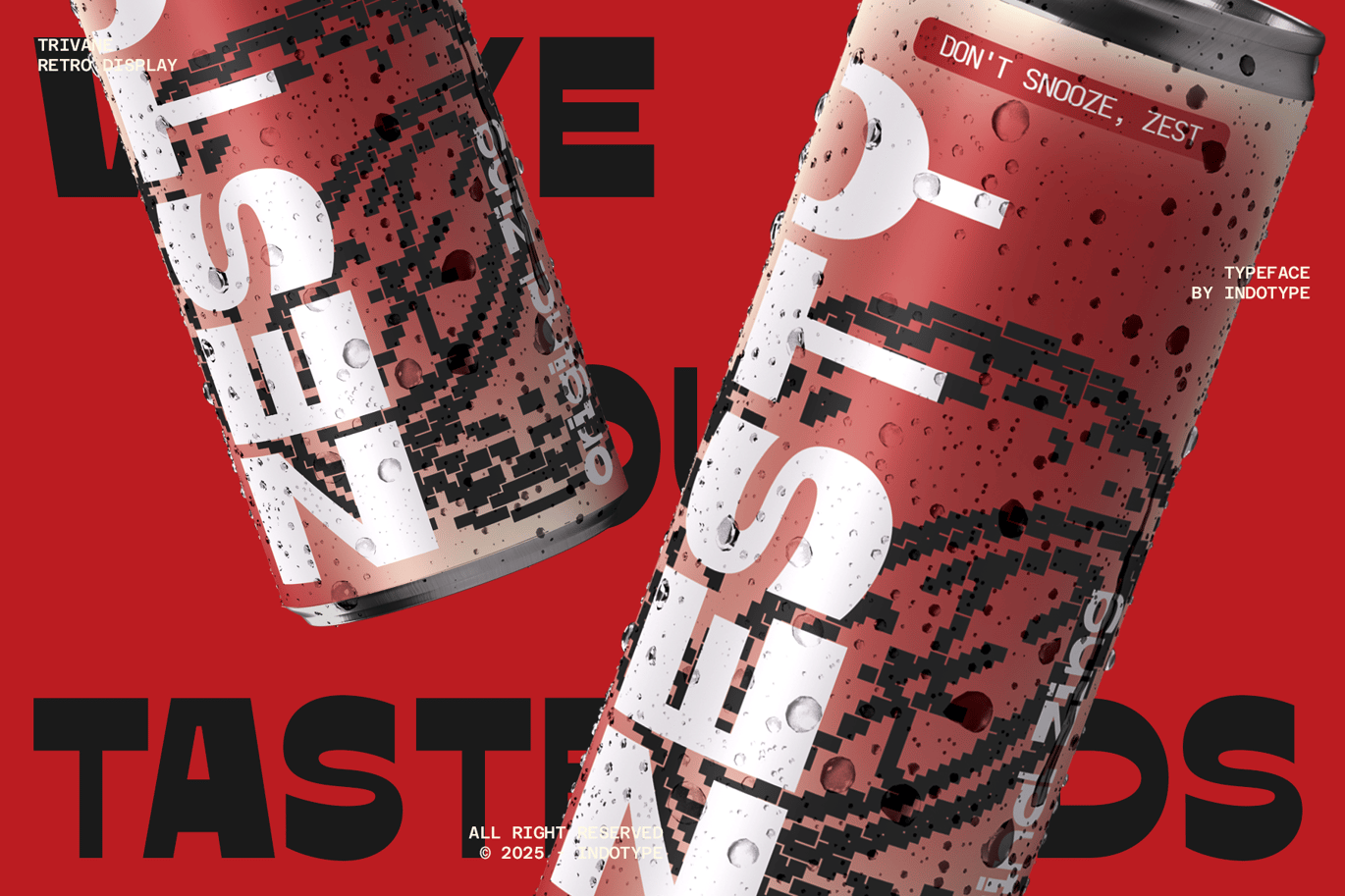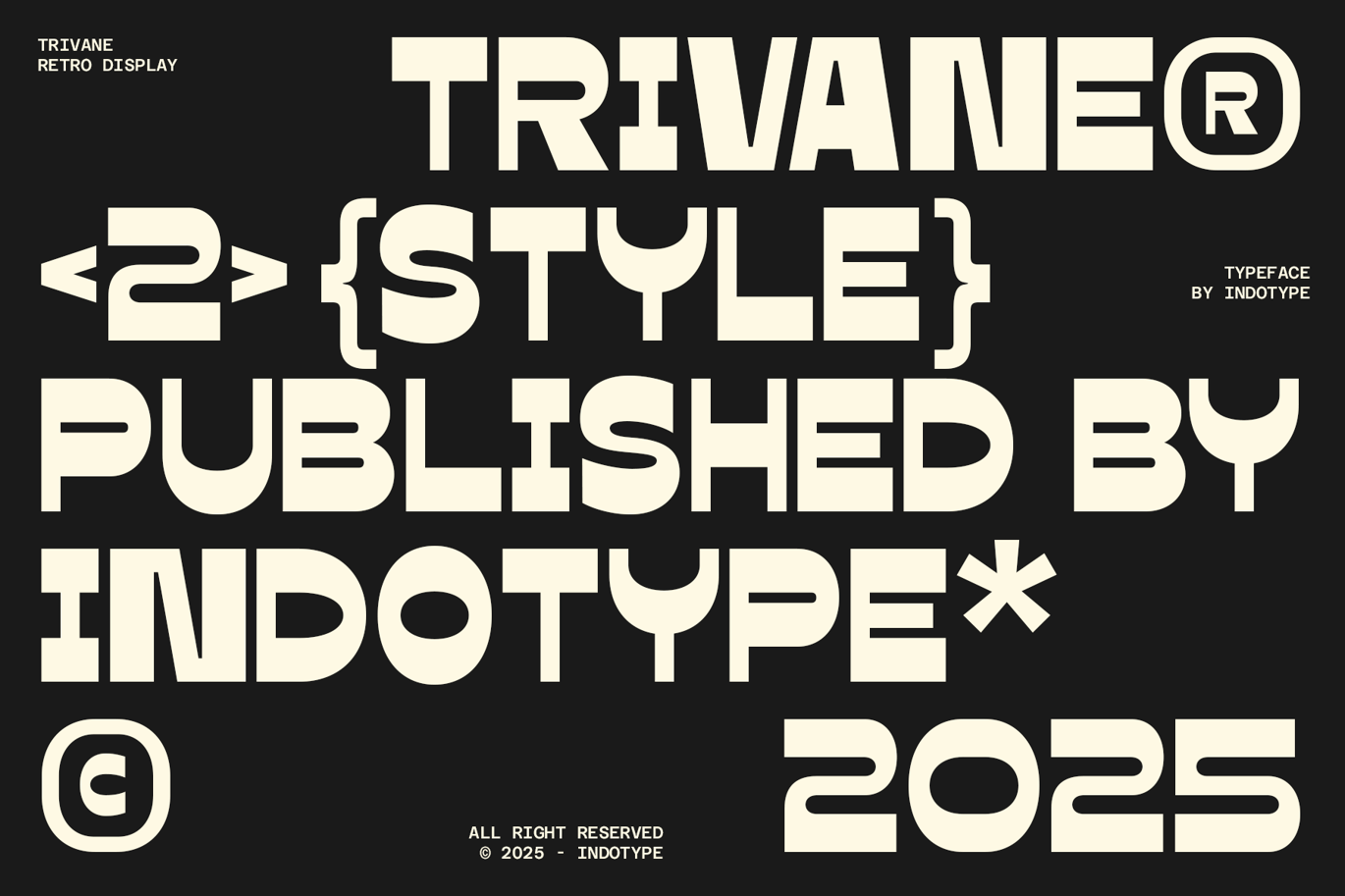
Trivane – Bold Retro Reverse Contrast Font
Trivane – Bold Retro Reverse Contrast Font is a versatile typeface ideal for various projects, including logos, branding, posters, blog headers, advertisements. The free version includes a full set of uppercase and lowercase letters, available in OTF, TTF, WOFF format.